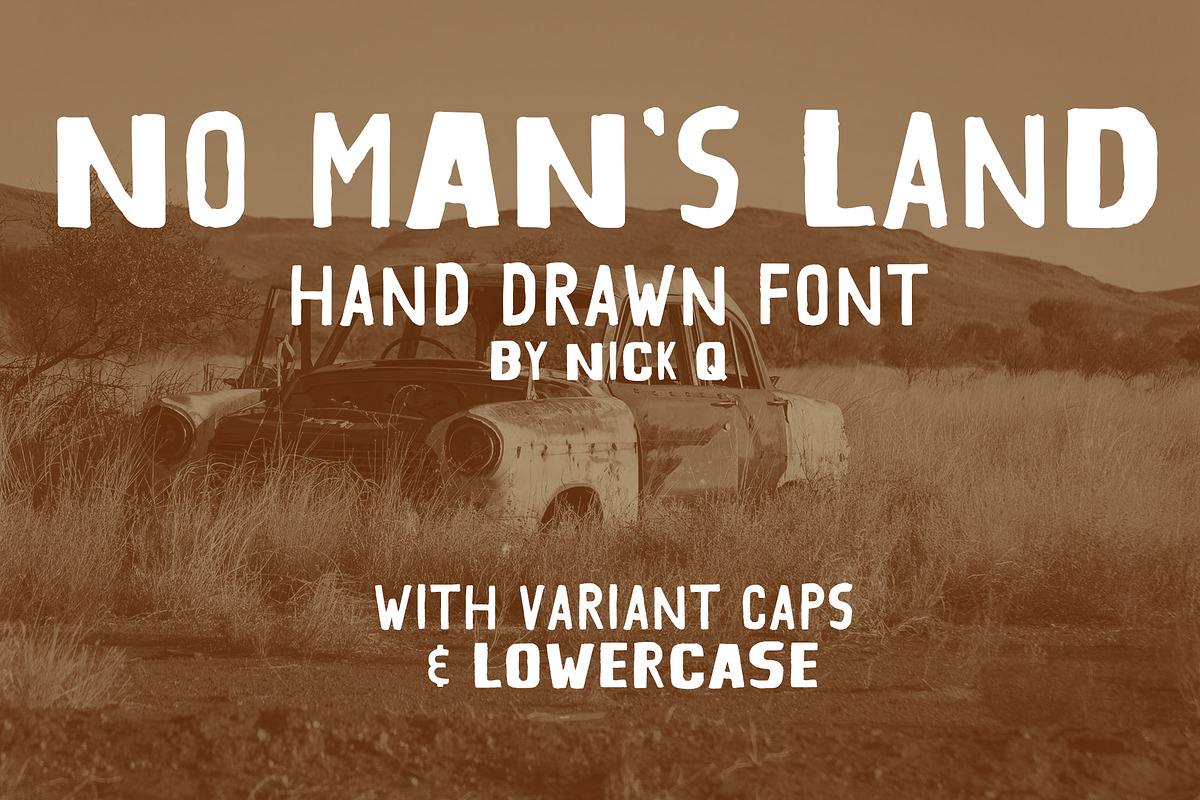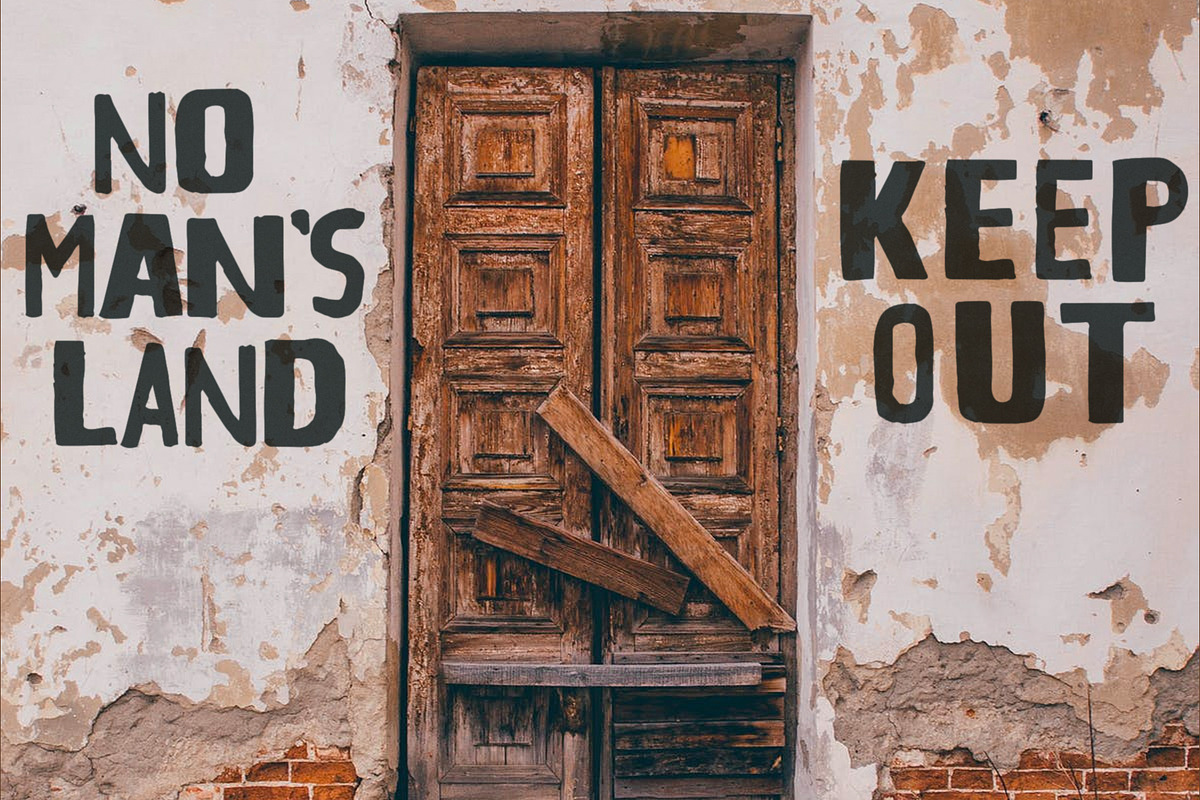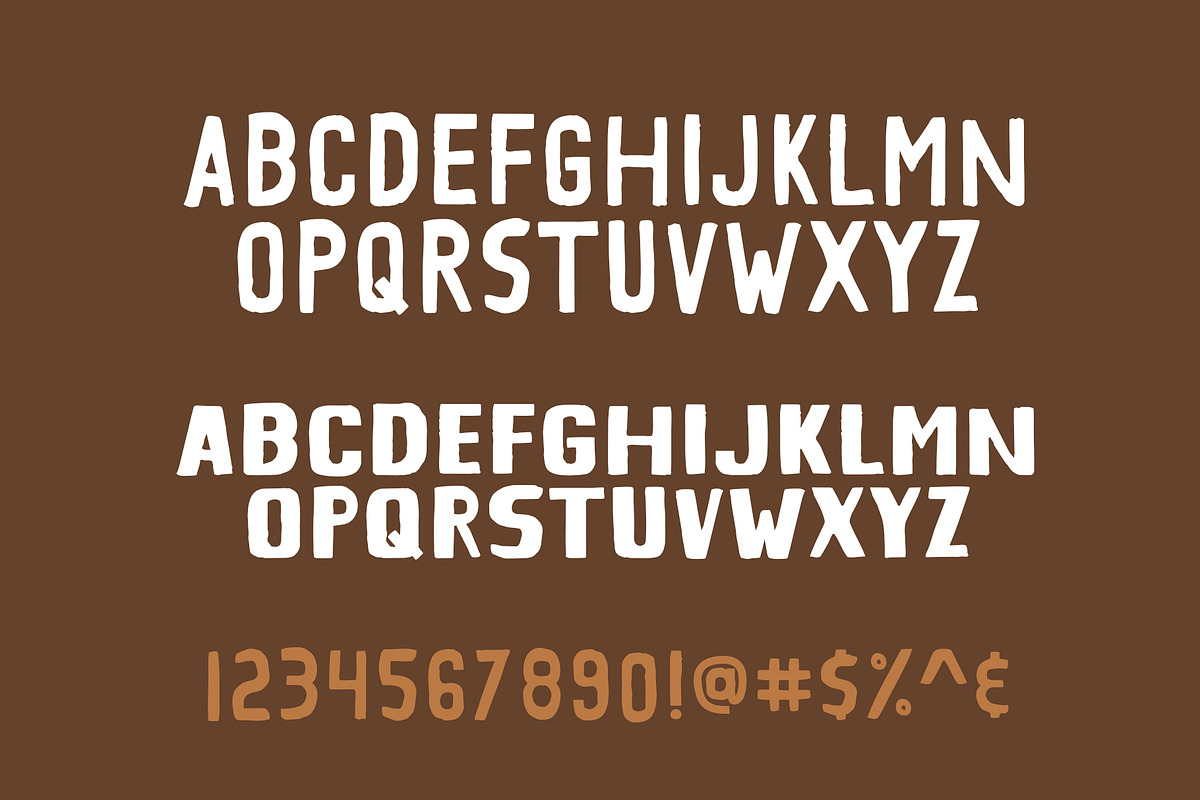
No Man's Land Hand Drawn Font
Why No Man's Land Hand Drawn Font is worth a look
No Man's Land Hand Drawn Font by nickqtx fits naturally into Branding, posters, packaging, typography.